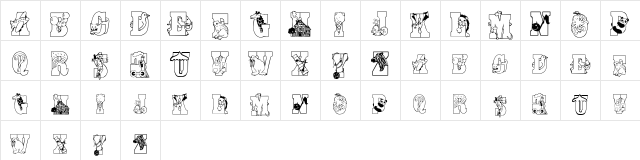
Complete Abcdaire Enfantin Regular glyph index. Displaying only characters natively supported by Abcdaire Enfantin Regular font.
Abcdaire Enfantin is a composed and adaptable typeface that performs quietly and consistently across a wide range of design contexts.